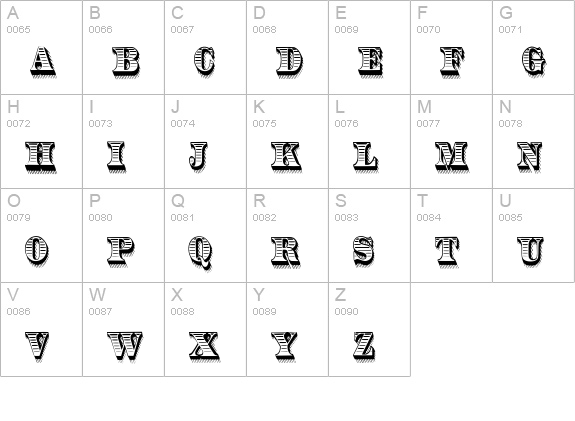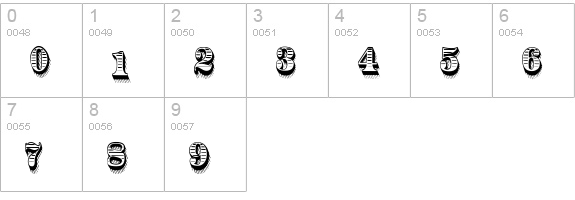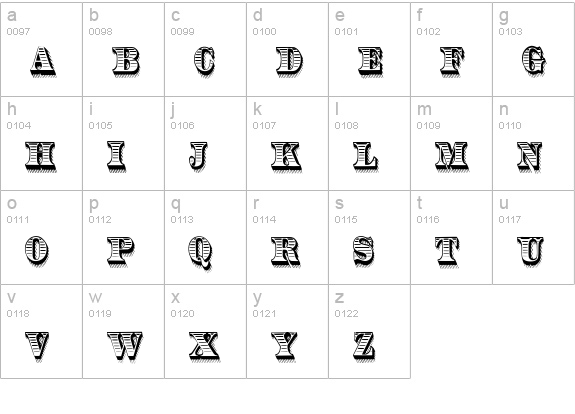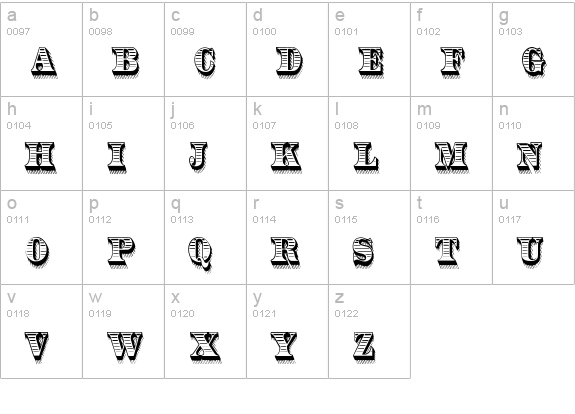
RadiantAntique is a timeless font that effortlessly captures the elegance and grace of a bygone era. Its meticulously crafted letterforms exude an air of sophistication, making it the perfect choice for projects that require a touch of vintage charm. With its delicate serifs and graceful curves, RadiantAntique adds a refined and classic touch to any design. Whether you're creating invitations for a wedding, designing a logo for a high-end brand, or crafting a vintage-inspired poster, this font will elevate your work to new heights. What makes RadiantAntique even more appealing is that it is absolutely free. Yes, you read that right! This exquisite font is freely available to download at FontsMarket.com. So, you can effortlessly add a touch of timeless beauty to your designs without having to worry about any additional costs. RadiantAntique is not just a font, it's a statement. It tells a story of elegance, nostalgia, and unparalleled craftsmanship. Its versatility allows it to seamlessly blend into any design style, be it modern or traditional. Its timeless appeal ensures that it will continue to captivate and inspire for years to come. So, if you're looking to add a touch of vintage allure to your designs, look no further than RadiantAntique. Download it for free at FontsMarket.com and let its inherent beauty shine through in your creations.